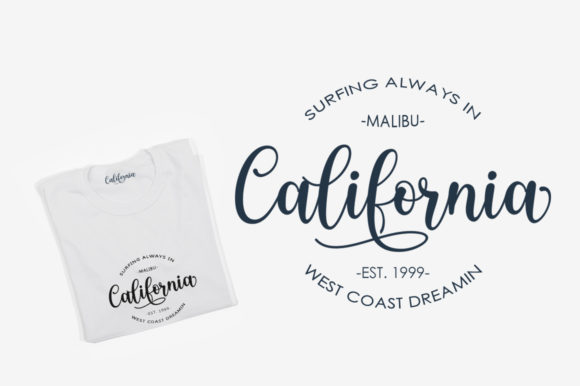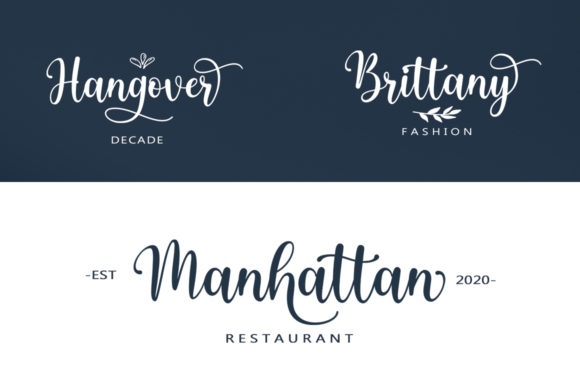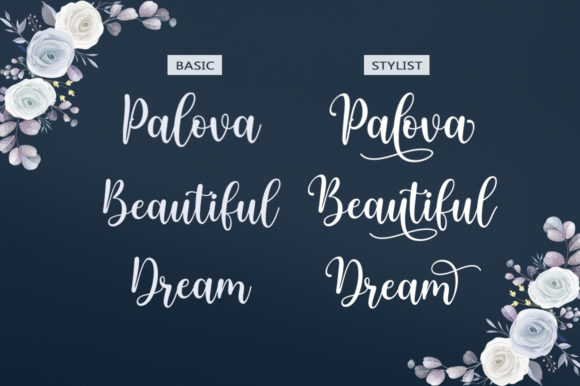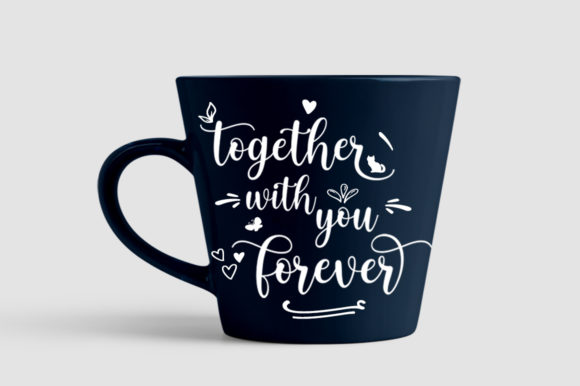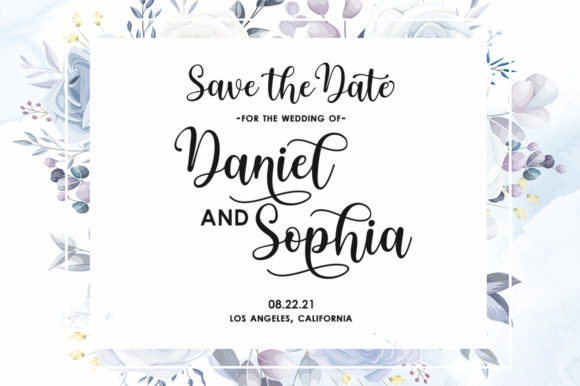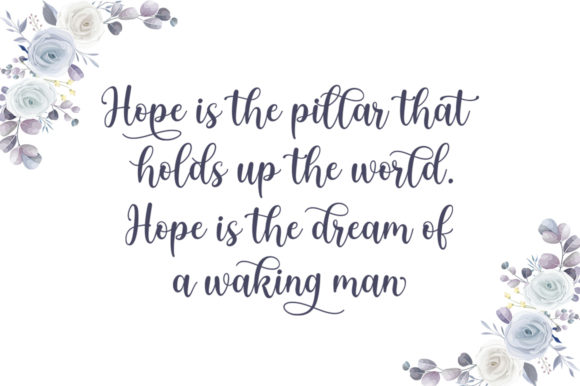
Bromley Hatch Script Font: Add a Touch of Whimsy to Your Designs
Are you looking for a font that can add a dash of personality to your designs? Look no further than the Bromley Hatch Script Font! This sweet handwritten font is perfect for designers and crafters who want to create beautiful and unique projects. In this article, we’ll take a closer look at the Bromley Hatch Script Font, its features, and how you can use it to brighten up your designs.
What is Bromley Hatch Script Font?
Bromley Hatch Script – With Extras is a beautiful handwritten font that is infused with cute nature-themed elements. The font is designed to be versatile and can be used for a wide range of projects, from crafting and scrapbooking to branding and advertising. The font’s playful and whimsical design makes it perfect for designers who want to add a personal touch to their work.
Key Features of Bromley Hatch Script Font
So, what makes the Bromley Hatch Script Font so special? Here are some of its key features:
- PUA Encoded: The font is PUA (Private Use Area) encoded, which means that you can access all of the glyphs and swashes with ease. This makes it easy to use the font and get the most out of its features.
- Nature-Themed Elements: The font includes cute nature-themed elements, such as flowers, leaves, and birds, which can add a touch of whimsy to your designs.
- Handwritten Design: The font has a beautiful handwritten design that gives it a personal and unique feel.
- Versatile: The font is versatile and can be used for a wide range of projects, from crafting and scrapbooking to branding and advertising.
How to Use Bromley Hatch Script Font
Using the Bromley Hatch Script Font is easy! Here are some ideas for how you can use it in your designs:
- Crafting and Scrapbooking: Use the font to create beautiful titles and captions for your scrapbook pages and crafting projects.
- Branding and Advertising: Use the font to create unique and eye-catching branding and advertising materials, such as logos, brochures, and flyers.
- Stationery and Invitations: Use the font to create beautiful stationery and invitations for special occasions, such as weddings and birthdays.
- Digital Designs: Use the font to create stunning digital designs, such as social media graphics and blog posts.
Tips for Getting the Most Out of Bromley Hatch Script Font
Here are some tips for getting the most out of the Bromley Hatch Script Font:
- Experiment with Different Sizes and Colors: Experiment with different sizes and colors to find the perfect combination for your design.
- Use the Font’s Swashes and Glyphs: Use the font’s swashes and glyphs to add a touch of personality to your design.
- Pair it with Other Fonts: Pair the font with other fonts to create a unique and eye-catching design.
- Use it for Headings and Titles: Use the font for headings and titles to add a touch of whimsy to your design.
| Font Name | Bromley Hatch Script Font |
| Author | Attract Studio |
In conclusion, the Bromley Hatch Script Font is a beautiful and versatile font that can add a touch of personality to your designs. With its cute nature-themed elements, handwritten design, and PUA encoding, it’s perfect for designers and crafters who want to create unique and eye-catching projects. Whether you’re working on a crafting or scrapbooking project, or creating branding and advertising materials, this font is sure to brighten up your designs!